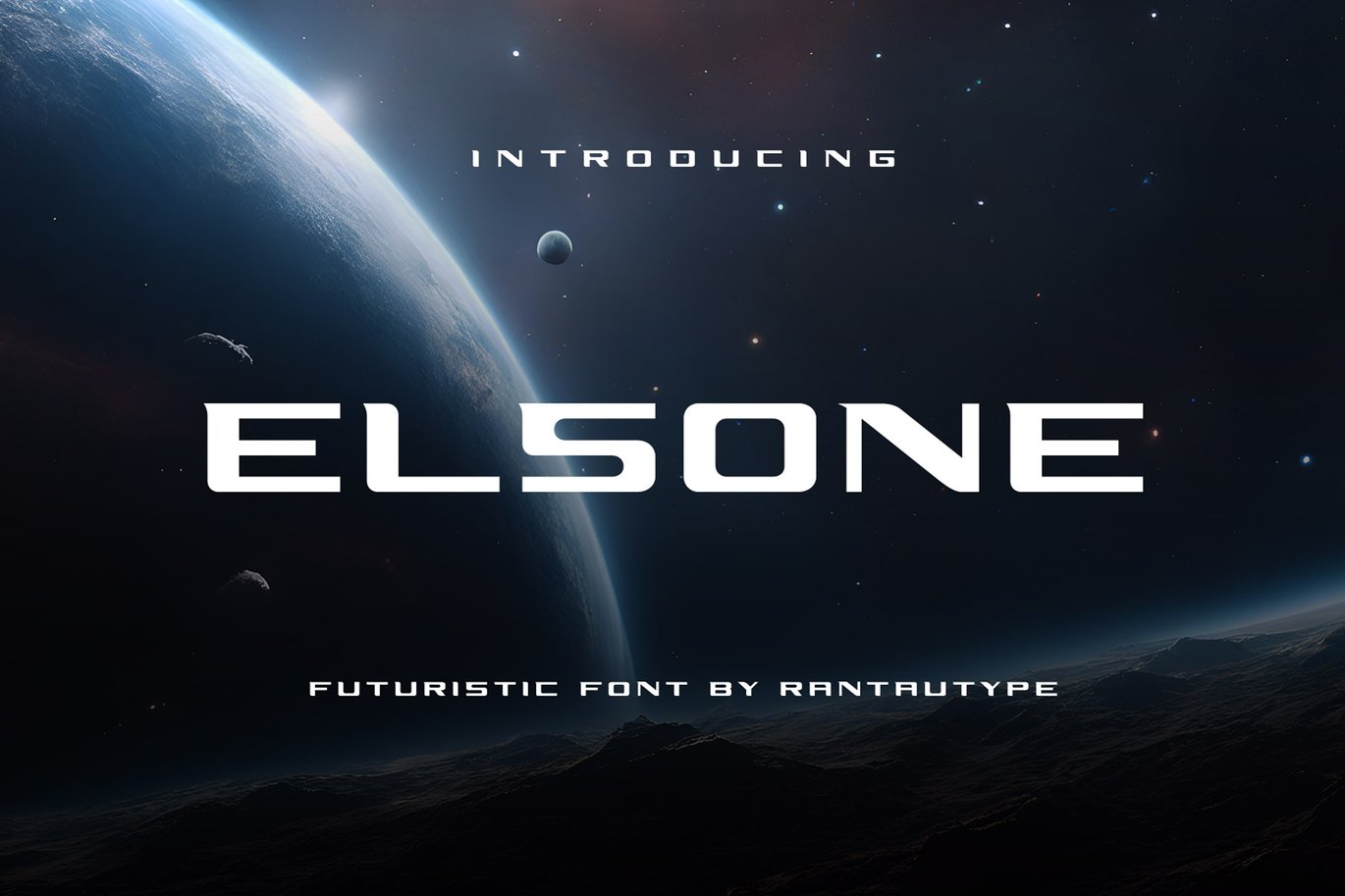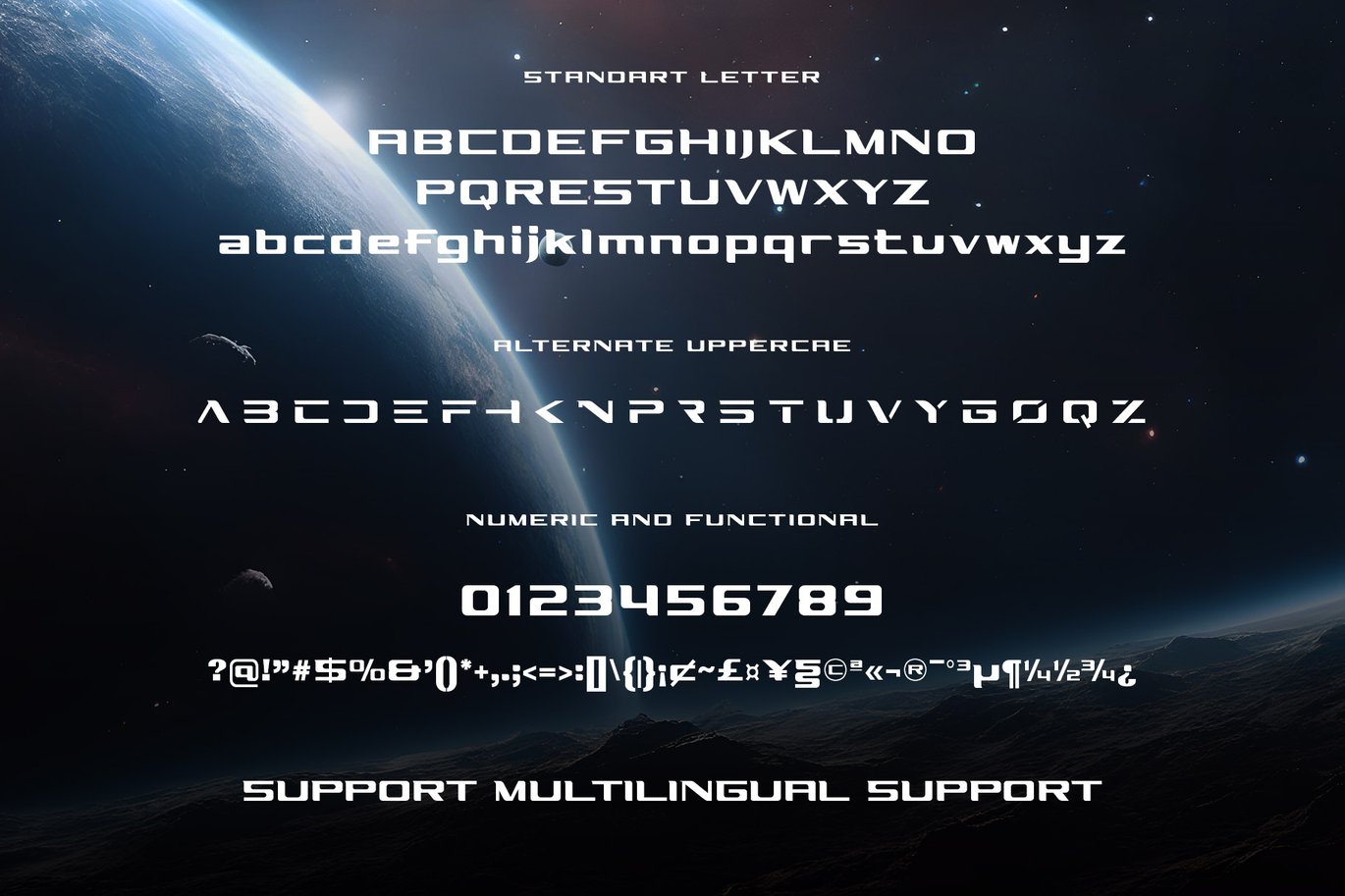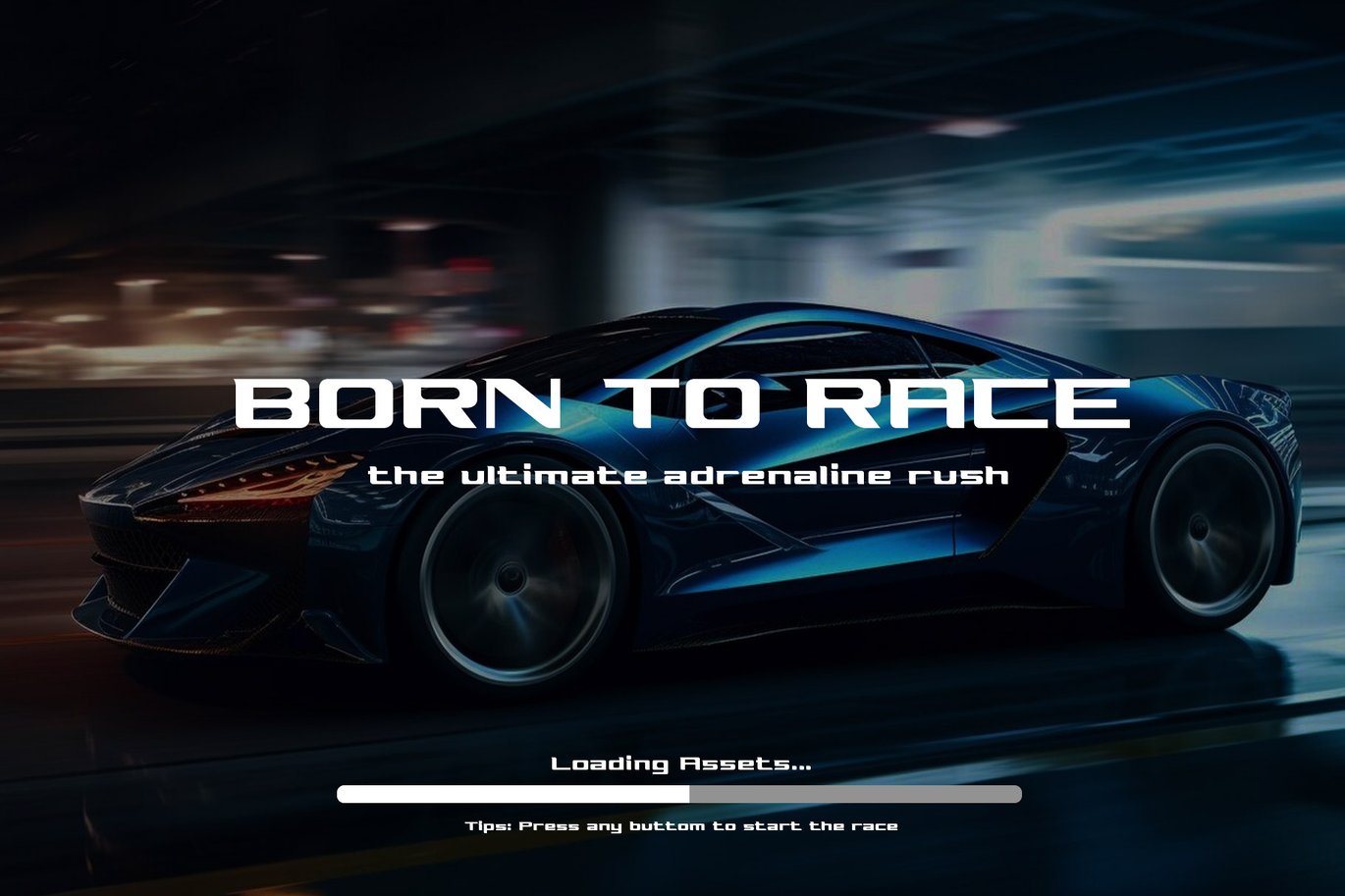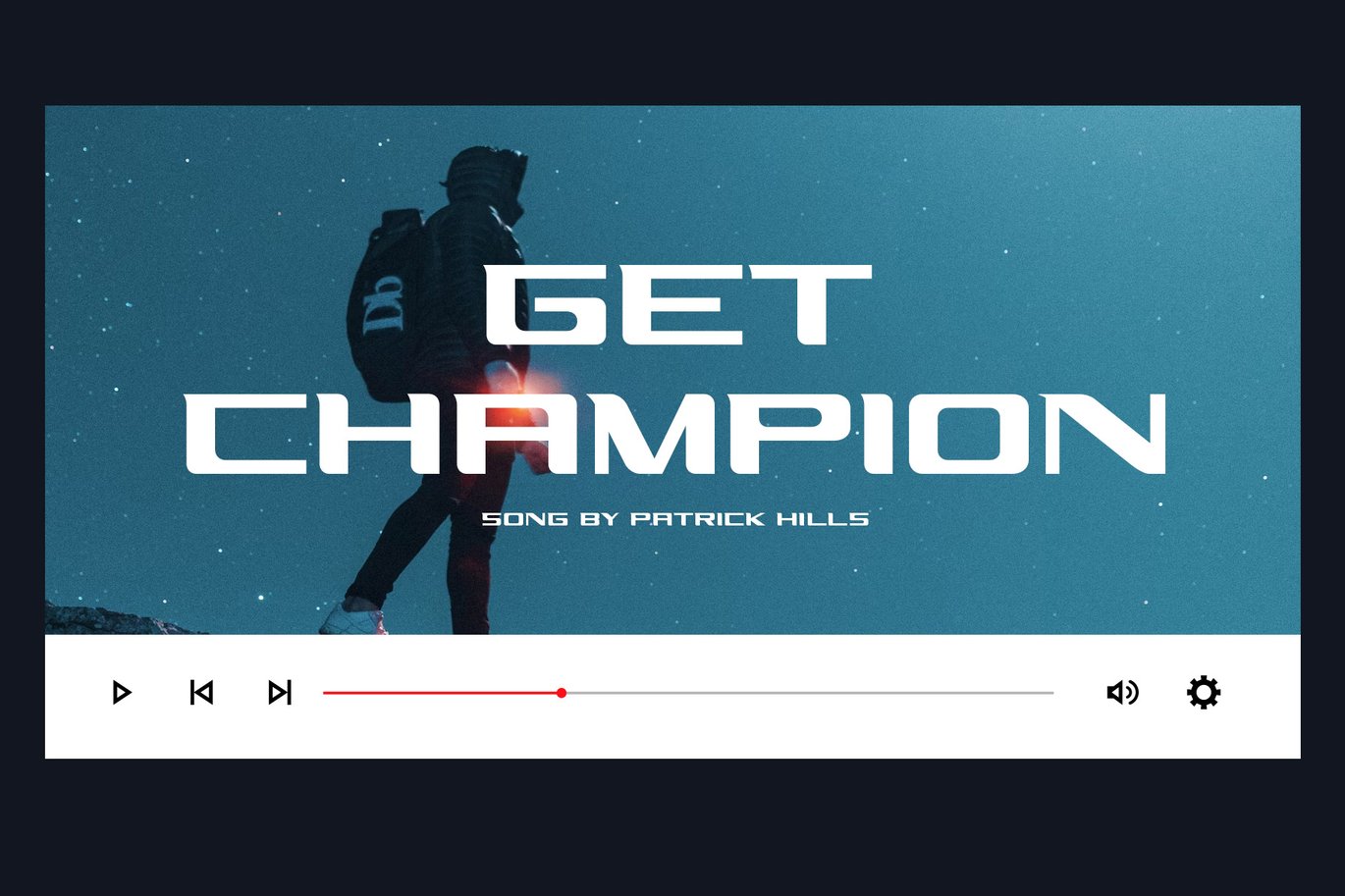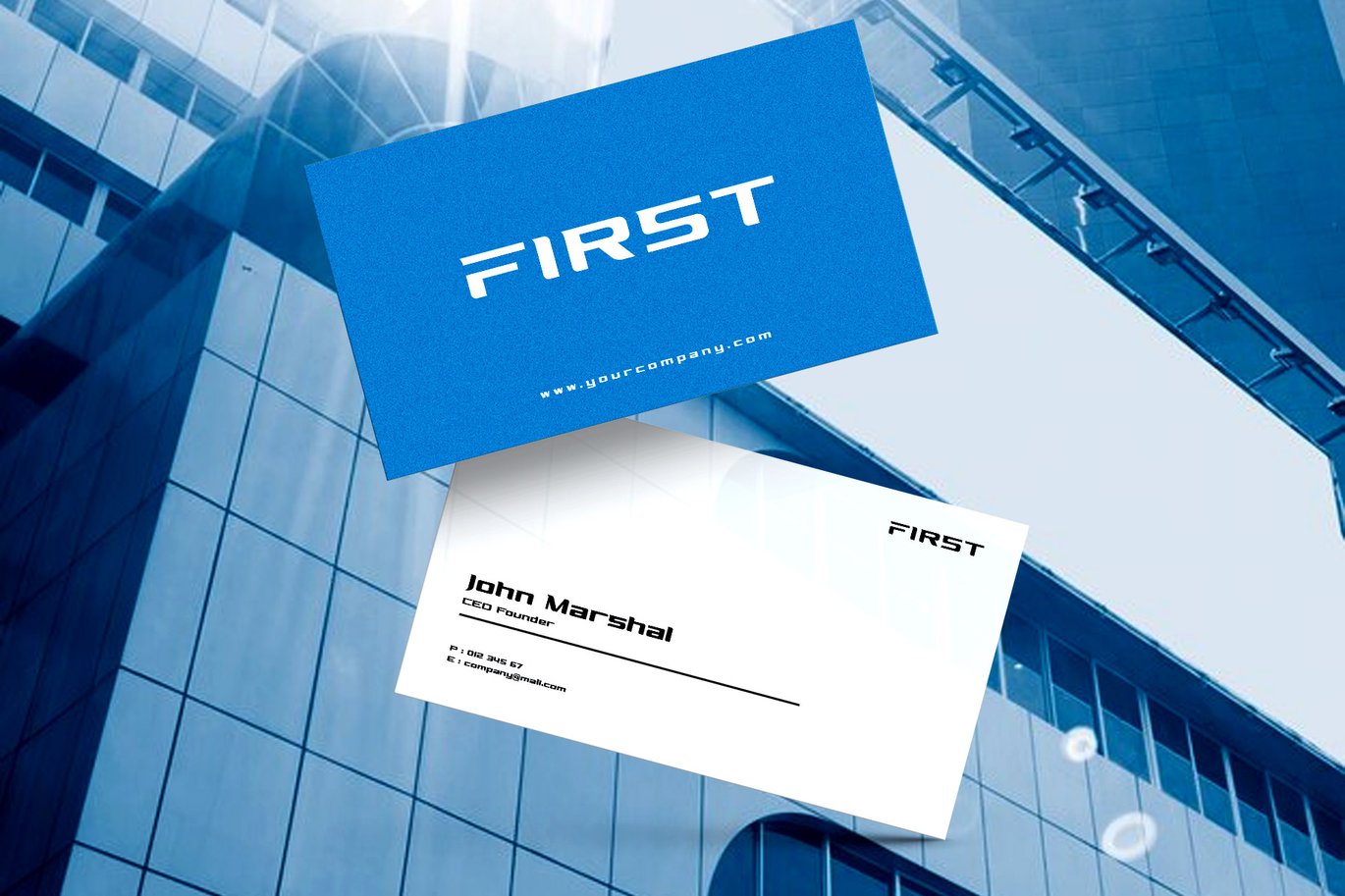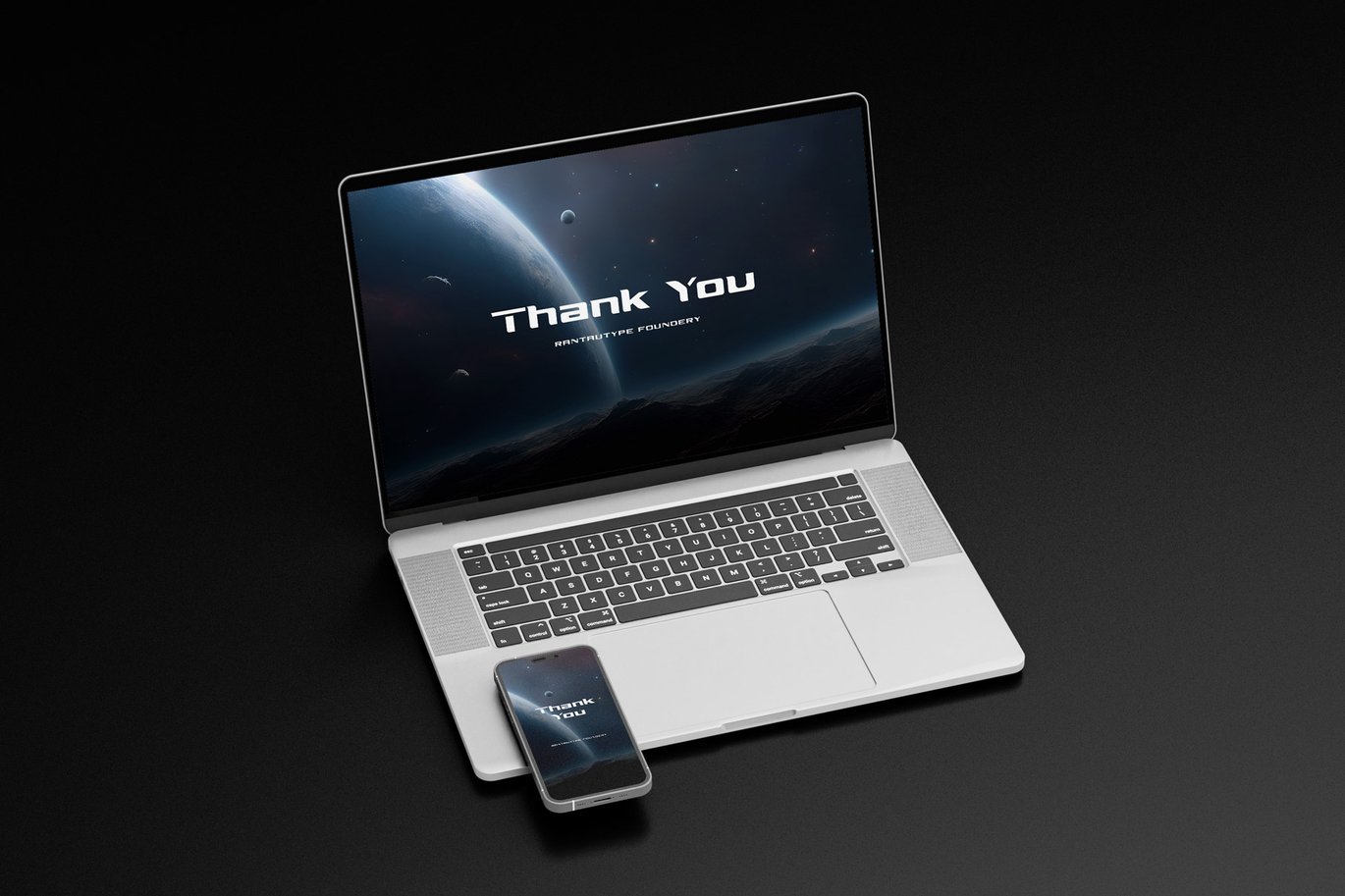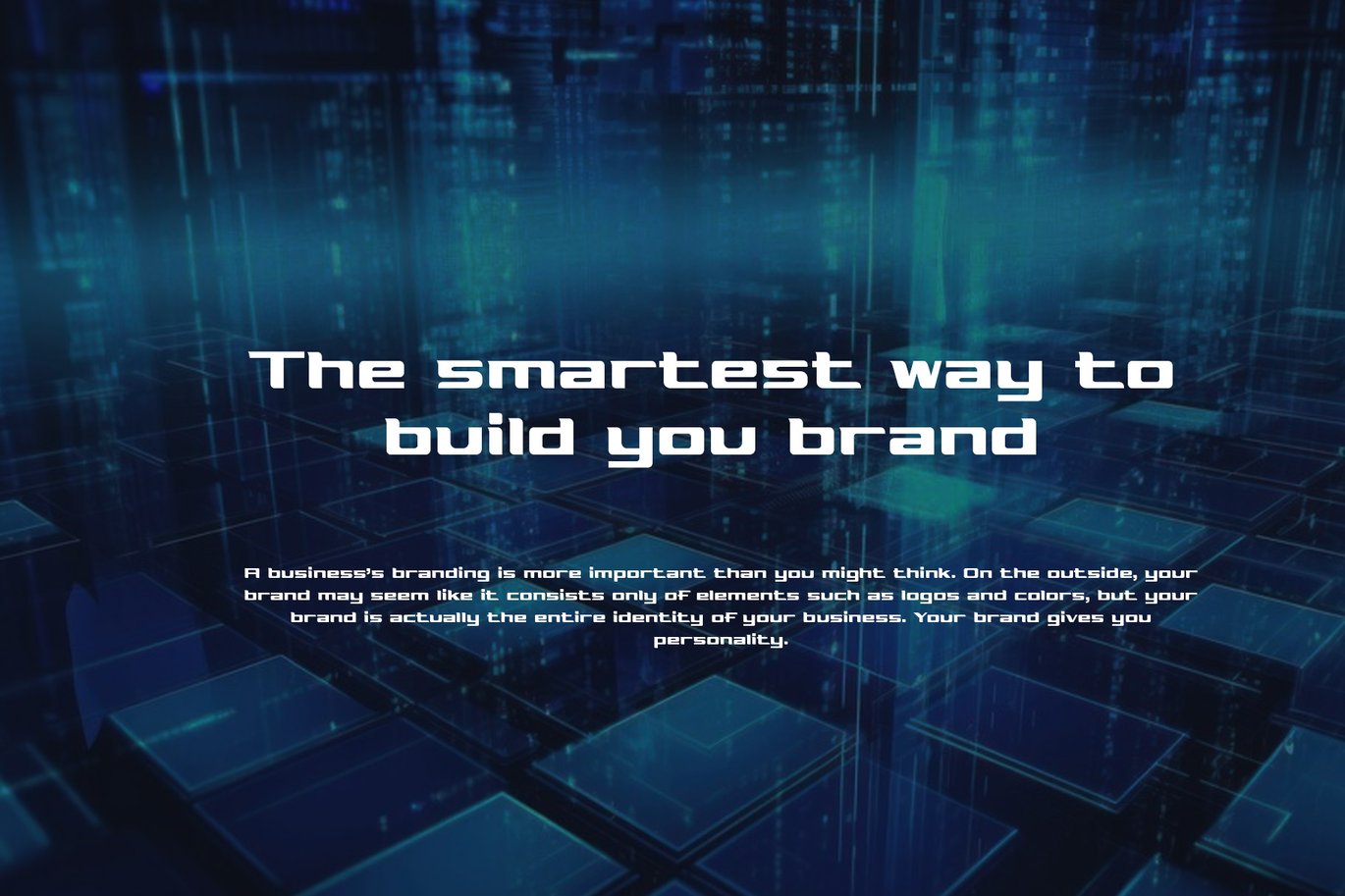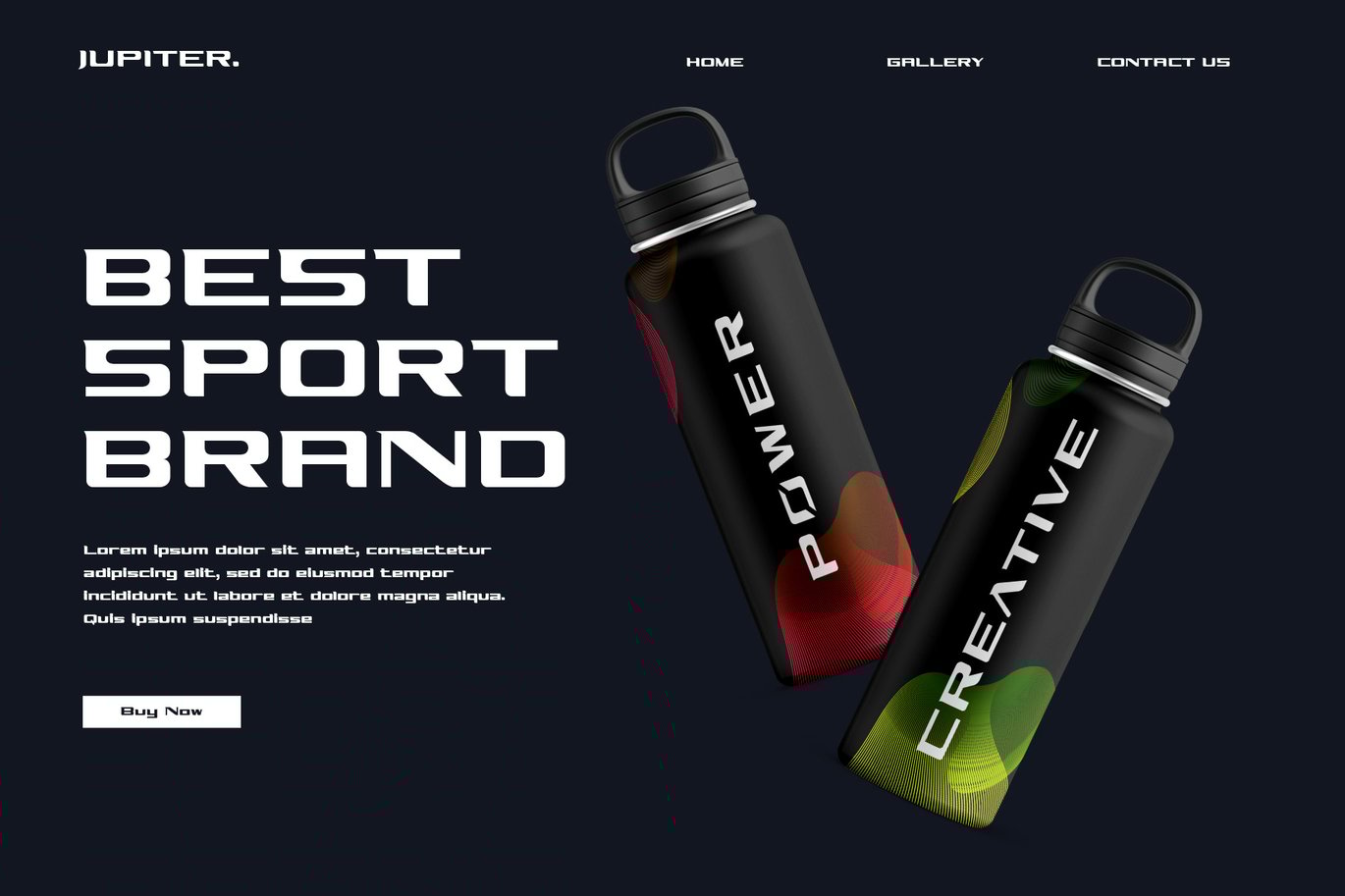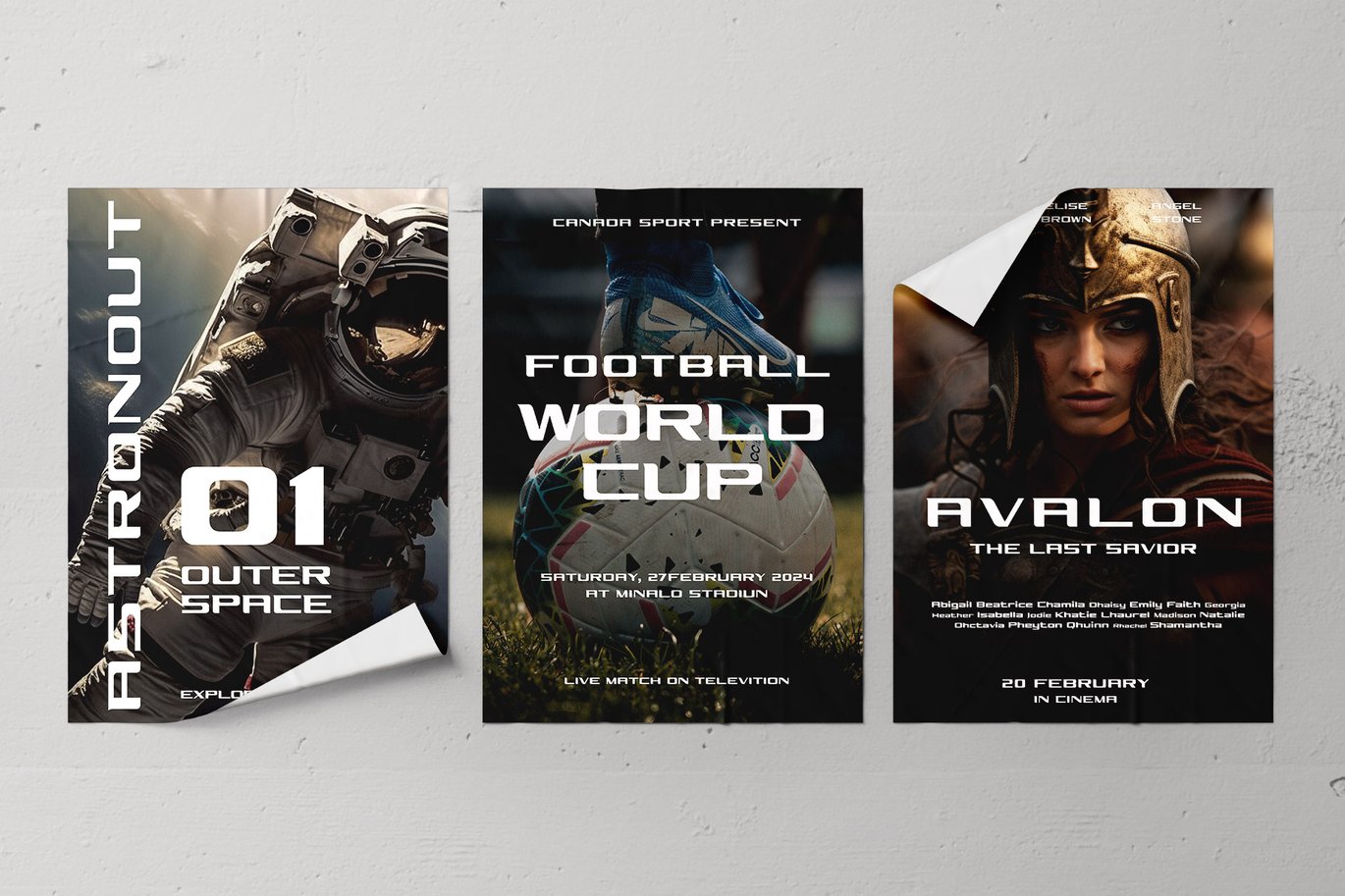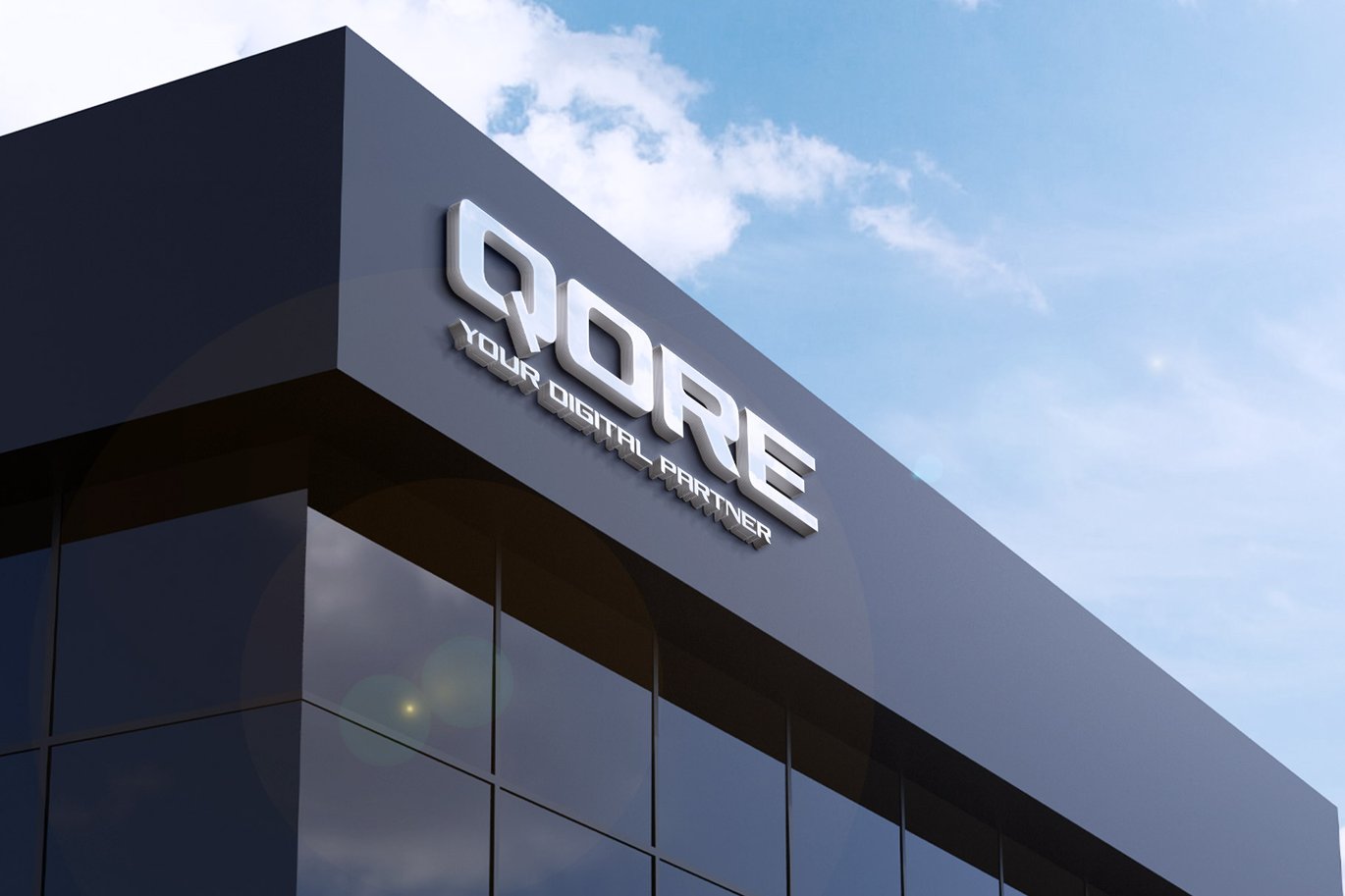
Elsone Futuristic Font
Proudly present Elsone futuristic font, by rantautype.
Experience modern in a futuristic visual form for your design with the elsone font. Inspired by the science fiction movies and futuristic digital concept. Strong and eye catch look is the main style for this typeface also outline style give more modern and elegant look. Unique alternate give more value for this typeface to stand out. Elsone come with ligature, alternate and mulilingual support.
Perfectly suitable for any creative endeavor, business project, corporate project, sports brand, logo, business card, games, posters, film/movie, packaging, events, advertising, digital futuristic concept and more. Now you can use Elsone to elevate you design.
- Standar letter A-Z and a-z